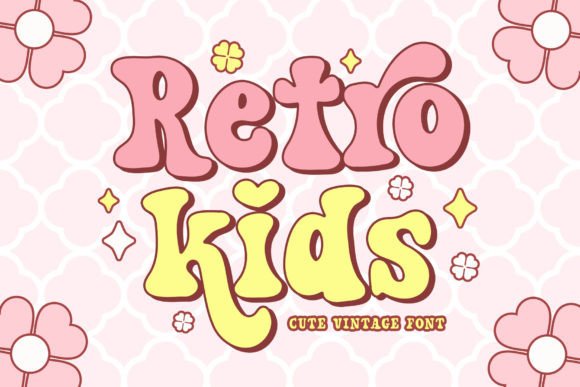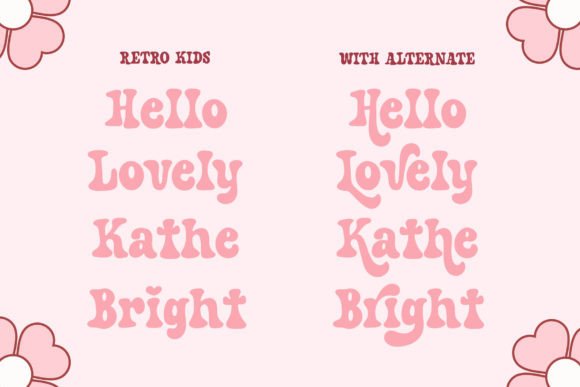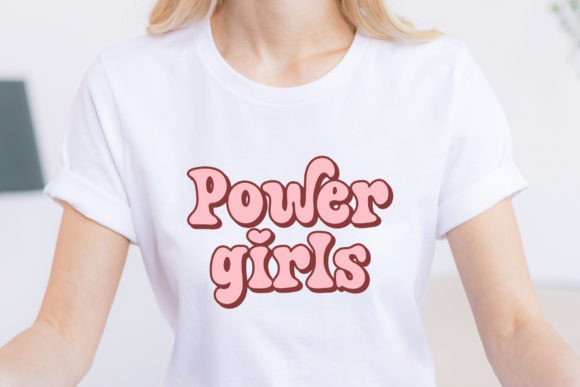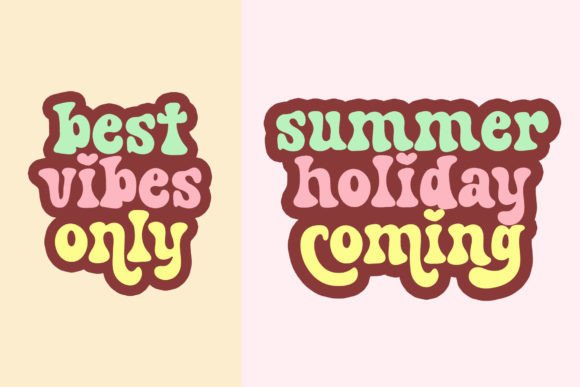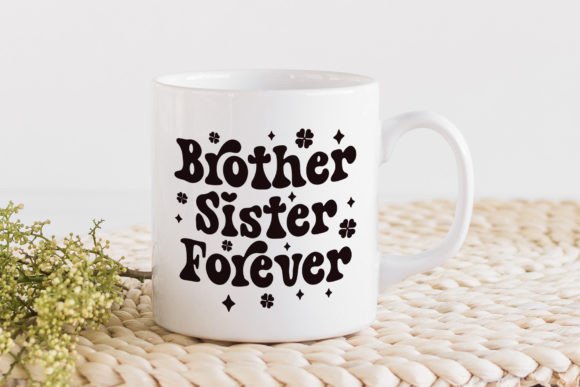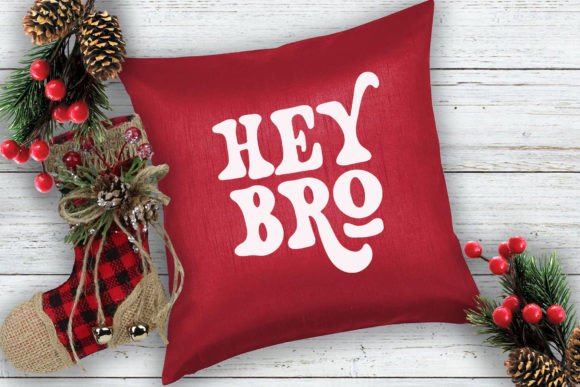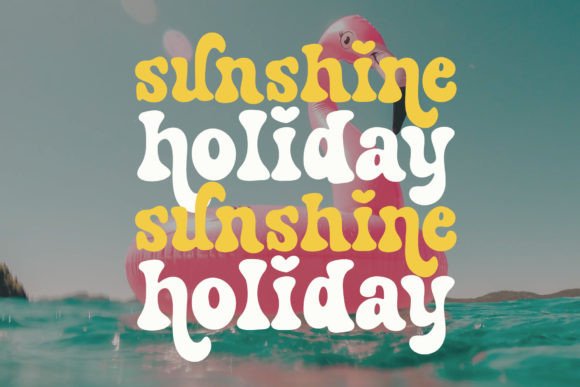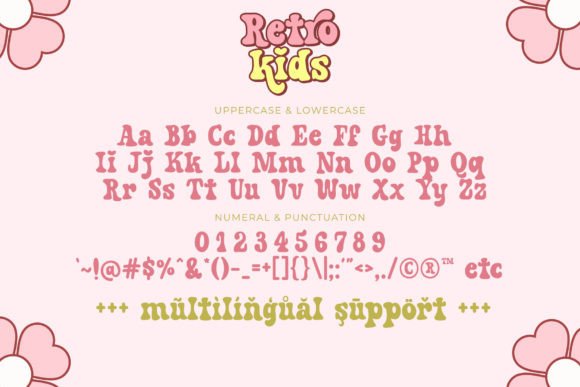
Retro Kids Font
Retro Kids is cute retro serif font It has vintage, groovy, and fun vibes. This font is special font for back to school theme.
It has some alternates for uppercase and lowercase to give more options in designing.
This font is adorable font for design that needs cute and retro touch, such as back to school design, kids design, birthday invitation, summer design, t-shirt design, crafting, sticker, sublimation, and many more.